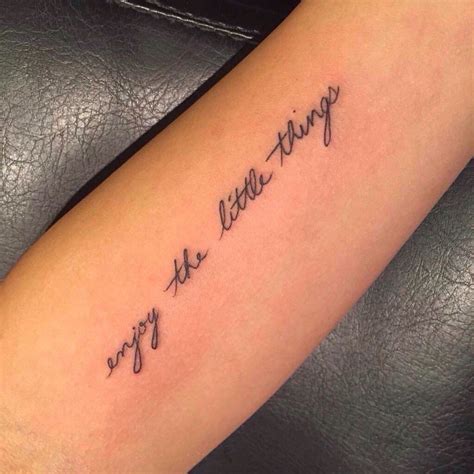
Athetic big bold fonts script. See more ideas about cursive tattoos, tattoo fonts, tattoo lettering. What’s the prettiest cursive font?
3d cursive stencil is an alternate style in bold black. The cursive font can be a great addition to traditional american tattoo style with roses, skulls, and birds. Level up your creative projects in a few simple clicks. This style is diverse because it influences the personal preferences, eras of time, and regions of the world.
Cursive tattoo fonts which are custom designed by the many tattoo artists across the globe require a lot of artistic talent and personal creativity. Scrawl cursive designed by tanya david is a typical font family of cursive style. You can use whole words, long quotes, sayings, poems, or lyrics to feature the written script by itself. Simply generate and share.
See more ideas about cursive tattoos, tattoo fonts, tattoo lettering. These cursive font tattoos can also be transformed into a variety of shapes (infinity, heart, flower and more). There is no app (at least in our knowledge) with an inbuilt text formatting option to change the fonts to look like cursive fonts. We have 48 free tattoo, cursive fonts to.
These cursive font tattoos can also be transformed into a variety of shapes (infinity, heart, flower and more). This tool directly convert your normal font to cursive font. They make your design look really neat and tidy, and give them an artistic feel, even if you do not want to rely on images to spice things up on your file..
Scrawl cursive designed by tanya david is a typical font family of cursive style. Her song by allouse studio. Usefancy cursive fonts for tattoos invitations posters and more. Cursive tattoo fonts, which are custom designed by the many tattoo artists across the globe, require a lot of artistic talent and personal creativity. Download more than 10,000 free fonts hassle free,.
Have heart is a bold cursive font which imitates a marker pen. Classic vintage or modern, thin or thick.all the best tattoo styles are right here on font bundles. For memorial tattoos, cursive fonts are preferable choices for example a name. Then select your bold or thin cursive text and just one click on copy text. 20+ cursive tattoo fonts.